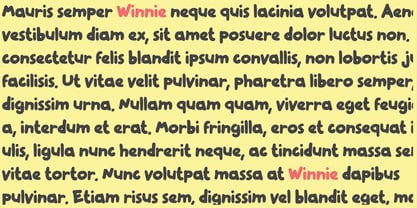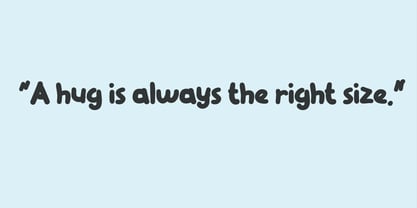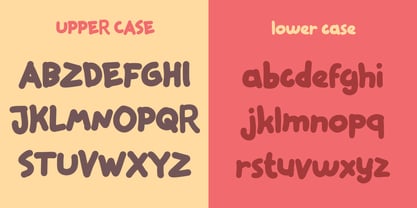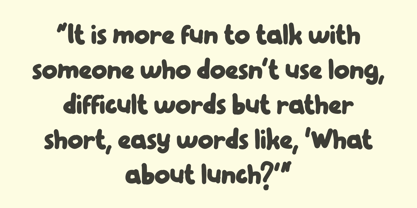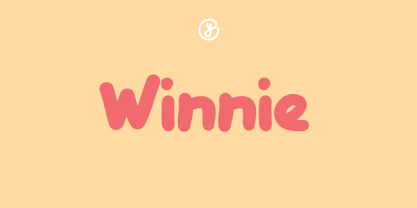
Winnie
by Yebhu
The Winnie Font Family was designed by Untung Prasetyo and published by Yebhu. Winnie contains 1 styles. More about this family
Winnie is a type of font that captures the playful and heartwarming charm of a beloved childhood character from those cherished storybooks. This font embodies the same cozy and friendly vibe, reminiscent of adventures in a world full of imagination. It’s round, soft, and ever-so-slightly plump—just like the character that inspired its name! While I’m not someone who spends hours rereading old storybooks these days (though they were undeniably delightful), I couldn’t help but fall for the name Winnie when designing this cheerful, chubby typeface. Perfect for projects needing a touch of warmth and nostalgia!
Designers: Untung Prasetyo
Foundry: Yebhu